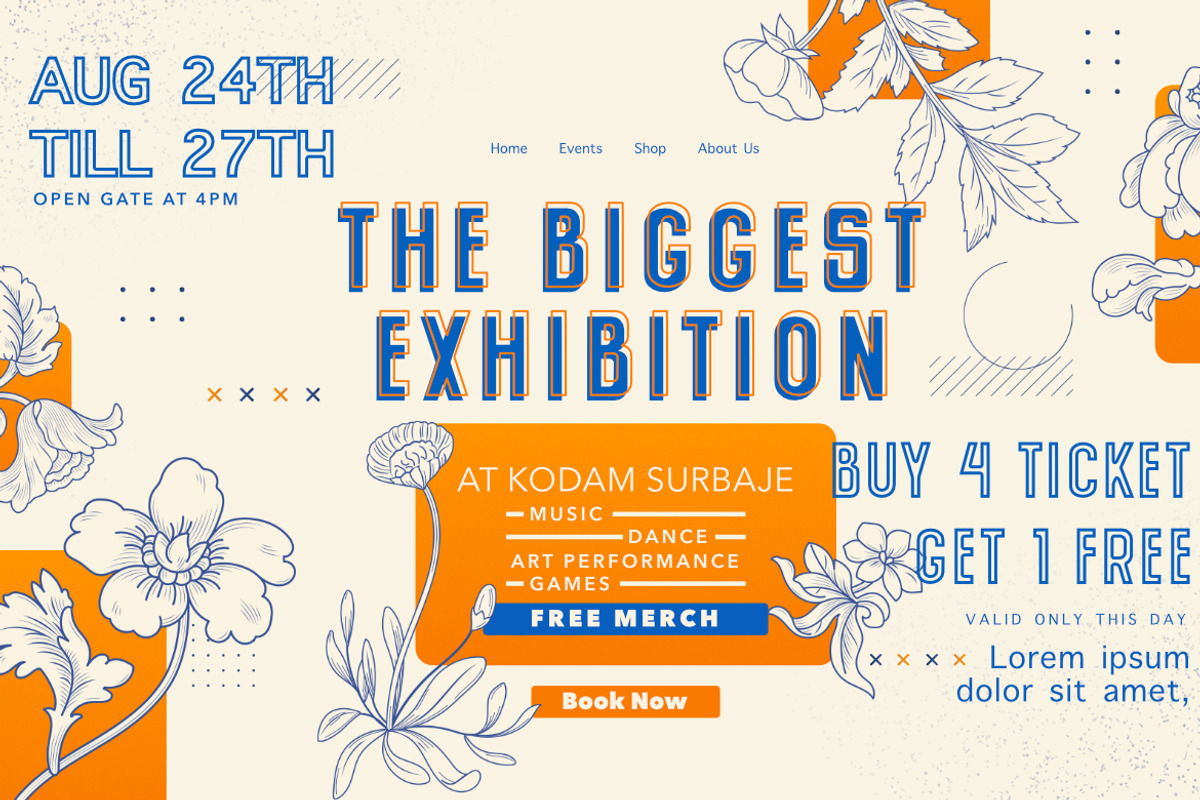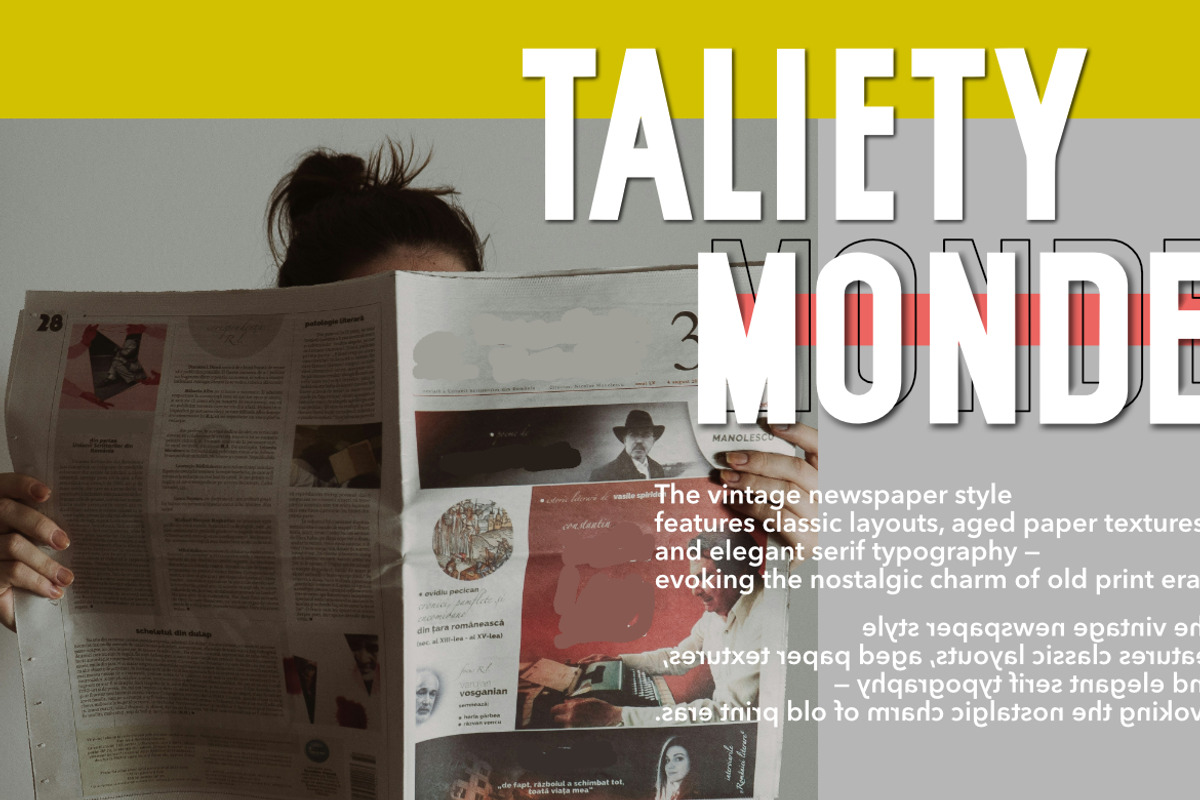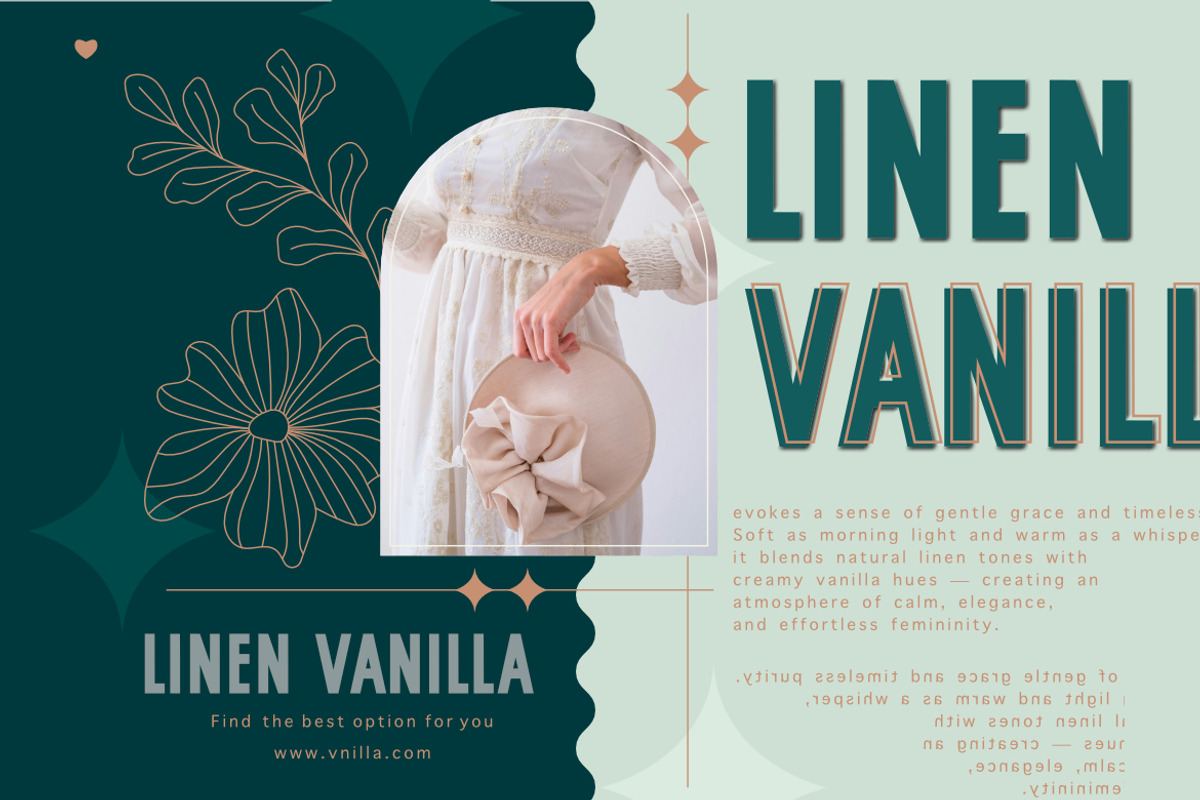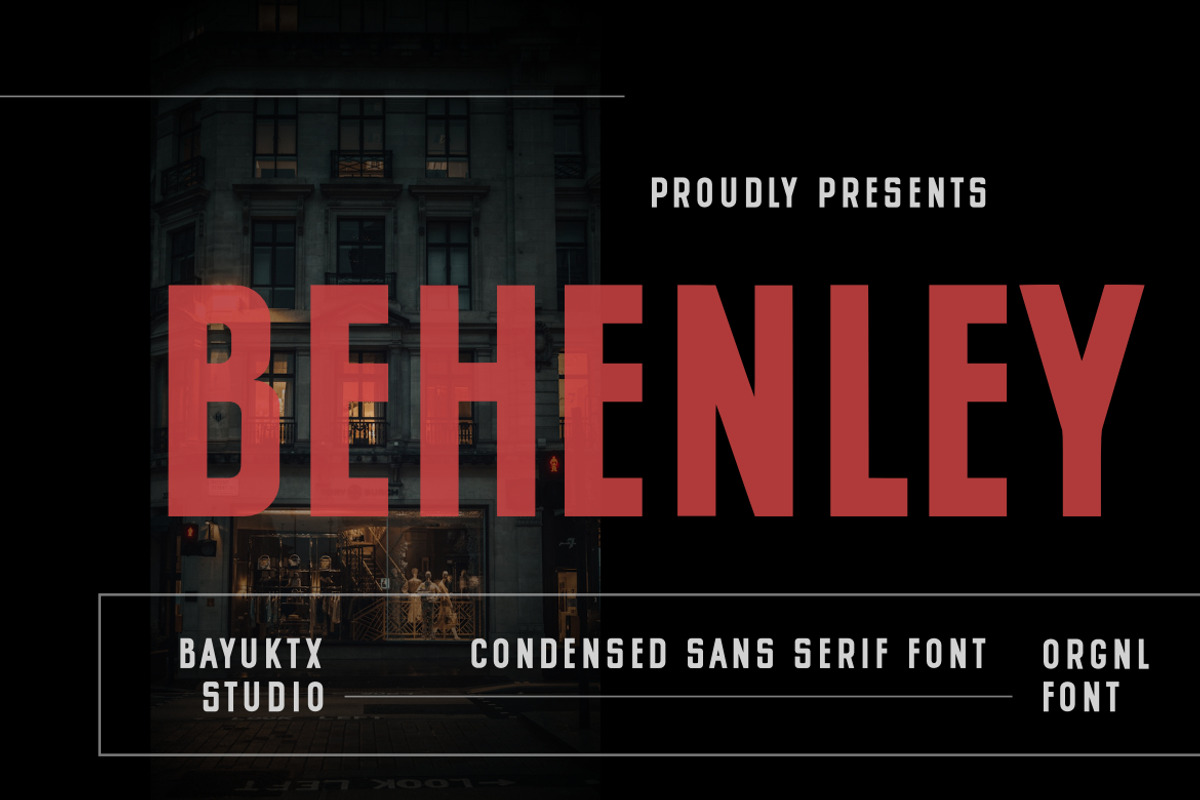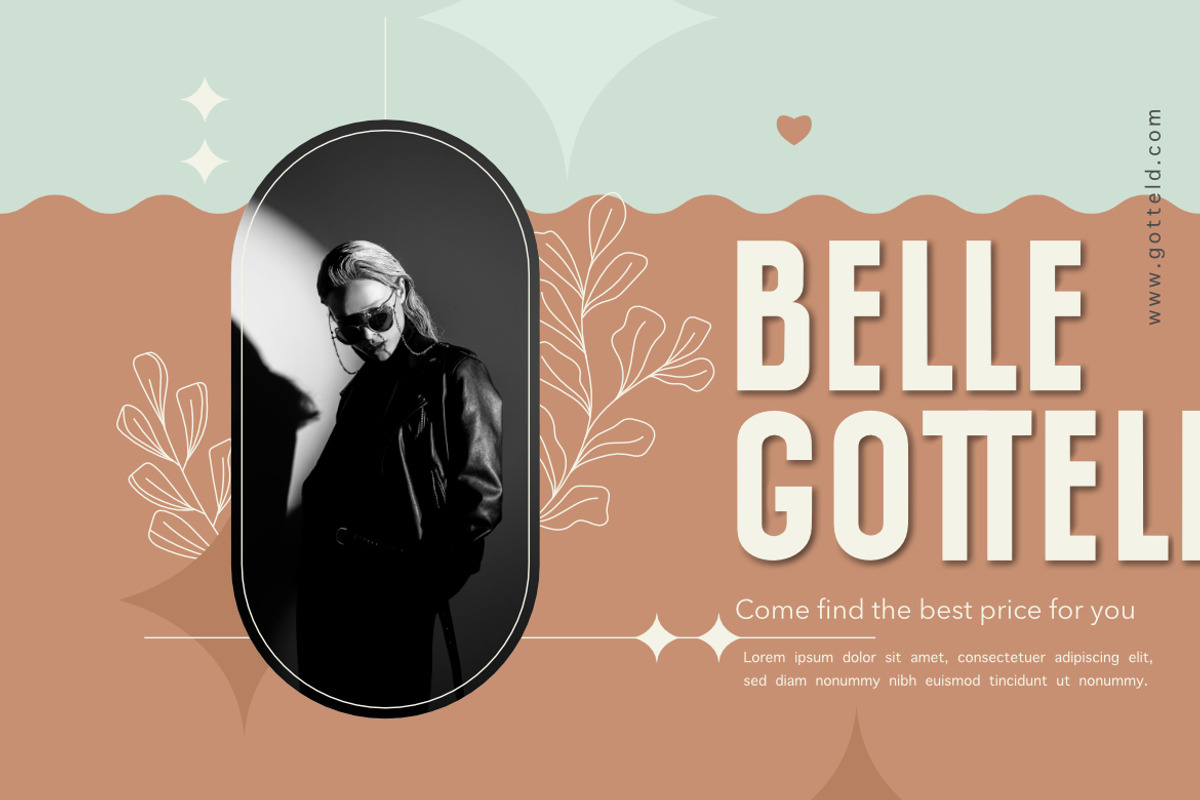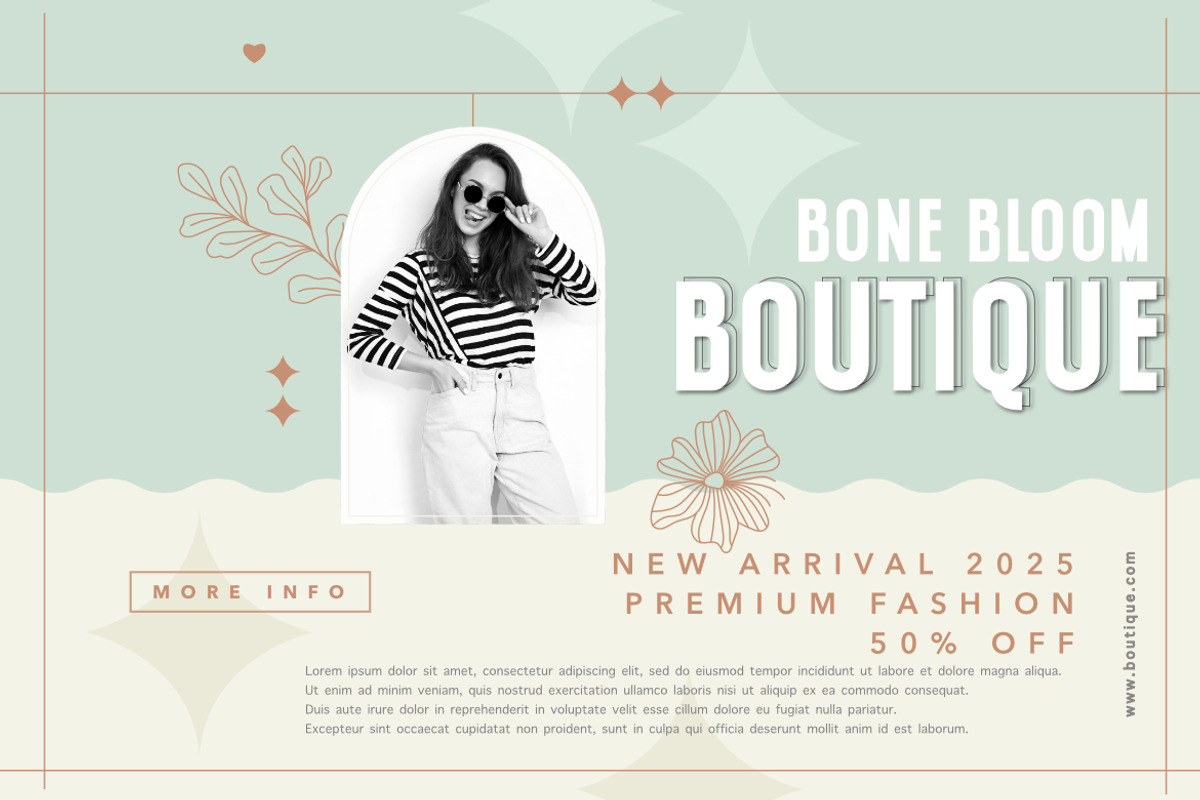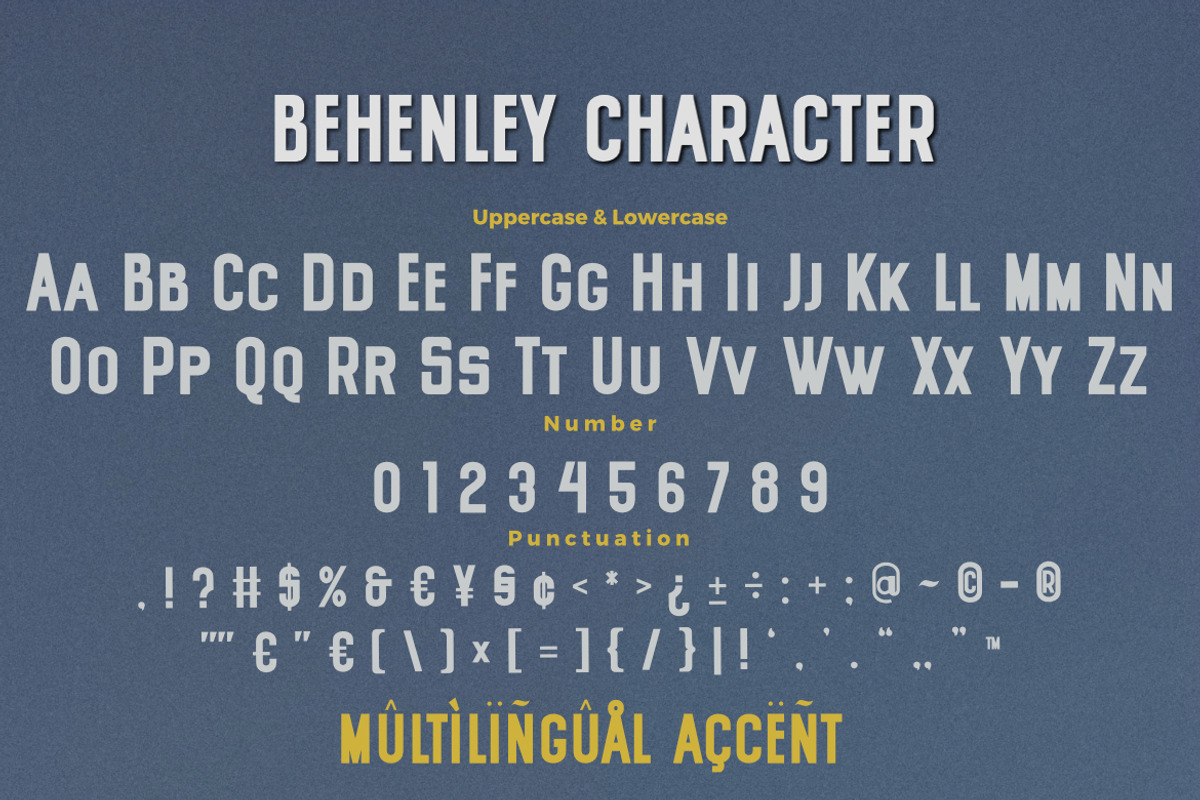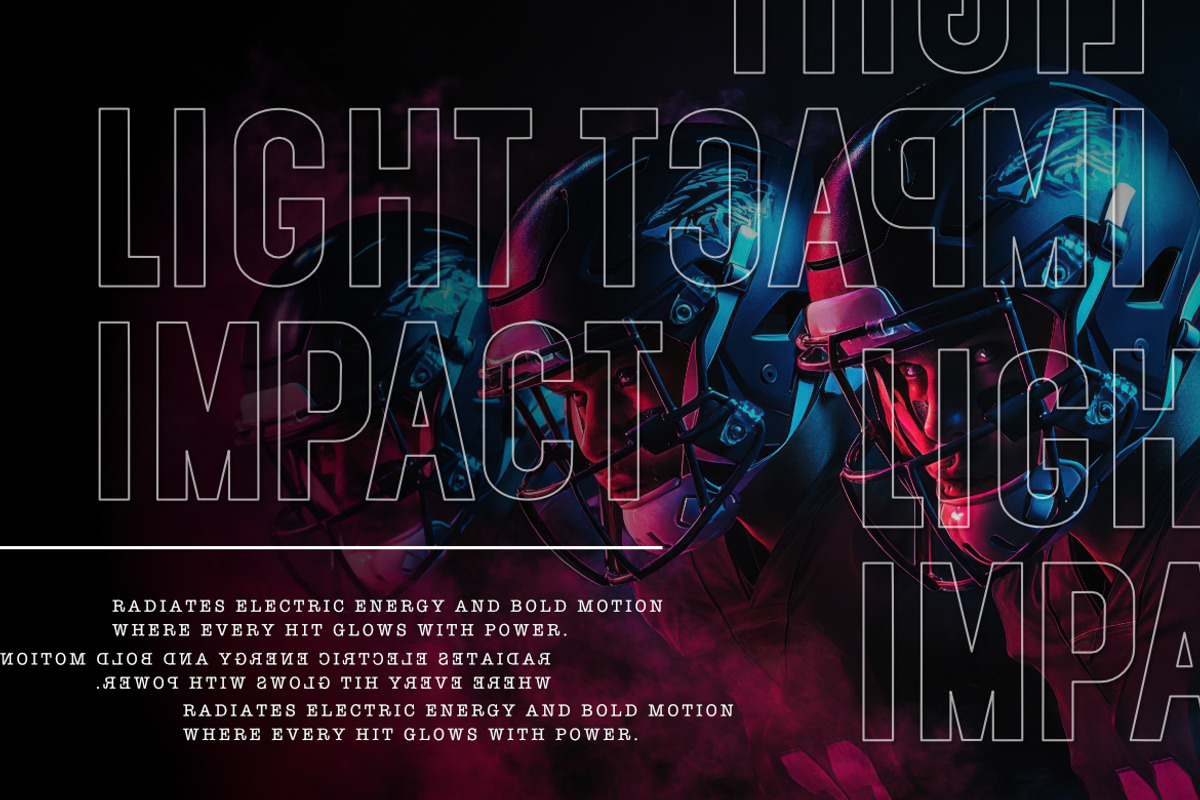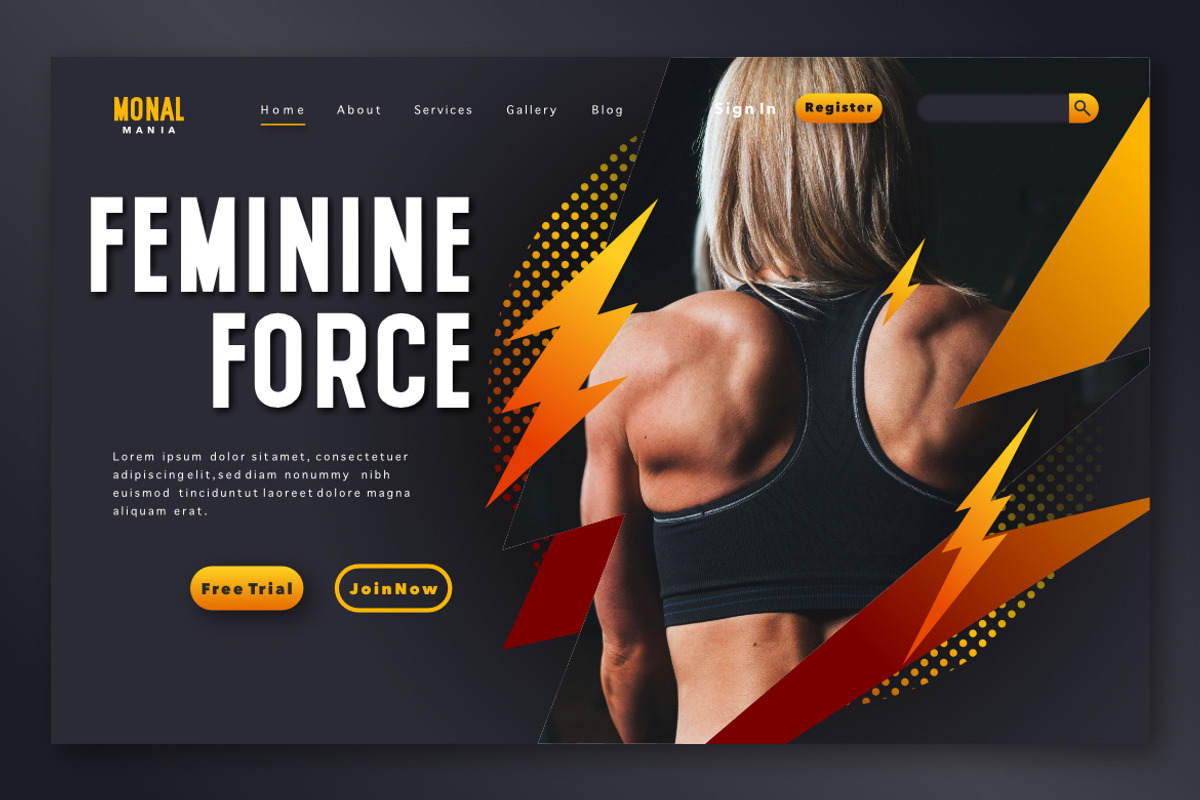
Behenley – Condensed Sans Serif Font
Behenley Condensed Sans Serif Font blends modern confidence with bold urban aesthetics. Its tall, clean letterforms and compact proportions create a powerful visual impact — perfect for designs that demand strength, structure, and sophistication.
Inspired by city architecture and contemporary fashion, Behenley delivers a balance of minimalism and assertive style. Each character is crafted to enhance clarity while maintaining a distinctive, editorial tone that elevates any layout.
Suitable For :
- Fashion & Editorial Design
- Branding & Logo Typography
- Magazine Headlines
- Posters & Signage
- Modern Advertising Campaigns
With Behenley Condensed Sans Serif Font, your design projects exude bold elegance and professional precision — the perfect fusion of urban edge and timeless appeal.